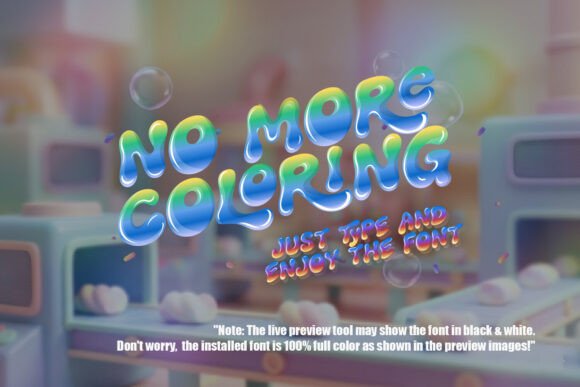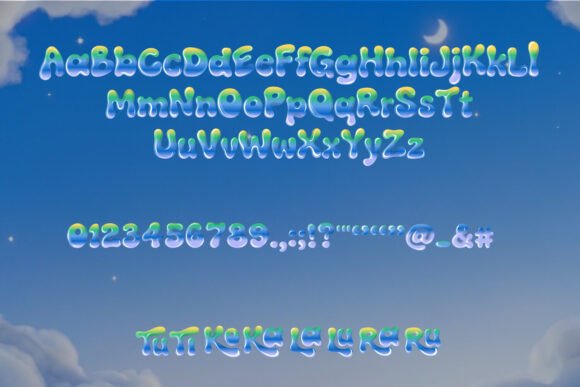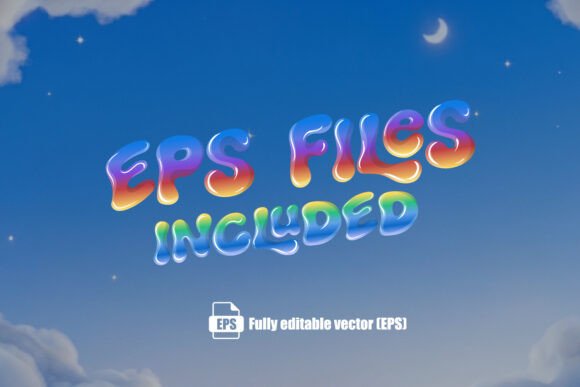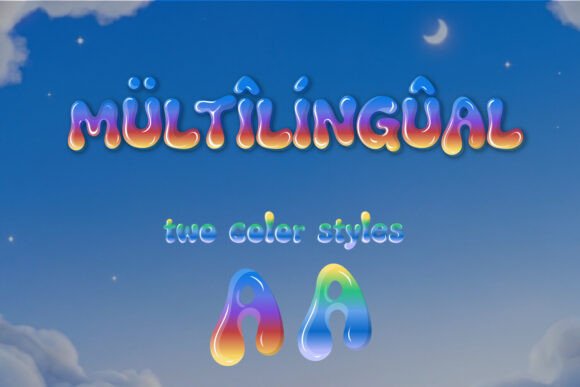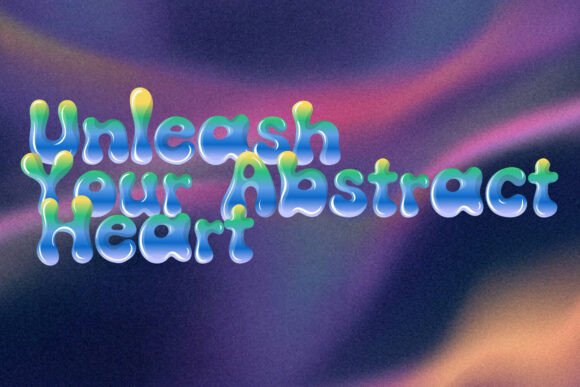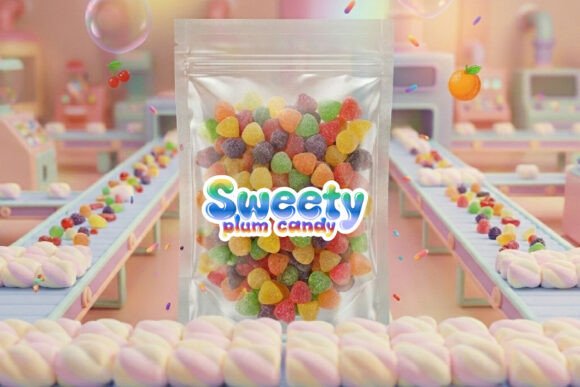
Introduction to Plumgumty Font
Do you remember the thrill of unwrapping a colorful gummy candy? The moment you discover a burst of sweet flavor and vibrant colors is a moment of pure joy. As a designer, you can now bring that same excitement to your creative projects with the Plumgumty Font! This innovative, high-quality color font is a game-changer for designers looking to add a pop of fun and energy to their designs.
Imagine being able to type out a message or a title in a font that’s as colorful and dynamic as a gummy candy. No more manual coloring or tedious design processes – with Plumgumty Font, you can unleash your creativity and focus on what matters most: bringing your ideas to life. Whether you’re working on a design project for kids’ products, social media thumbnails, or modern branding, Plumgumty Font is the perfect resource to elevate your creative workflow.
Key Features of Plumgumty Font
- High-quality, unique design perfect for creative projects, available as a free download for designers.
- Transparent background, making it ideal for use on various backgrounds and designs.
- Supports a wide range of languages, making it a valuable resource for international design projects.
- Unique characteristics include a bold, modern aesthetic and intricate details, making it a standout design resource.
Honest Review: Plumgumty Font
I recently had the chance to work with the Plumgumty Font, and I must say, it’s been an interesting experience. As a designer, I’m always on the lookout for unique and high-quality fonts to add a touch of personality to my creative projects.
One of the standout features of the Plumgumty Font is its ✨ transparent background, which makes it a great choice for designers who need to create graphics with a clear background. The font itself is also quite versatile, with a range of weights and styles to choose from, making it perfect for a variety of creative projects.
Here are some of the key features of the Plumgumty Font:
- High quality, with a clear and crisp font design
- Transparent background, perfect for graphics with a clear background
- Range of weights and styles to choose from
However, I do have to mention a few limitations of the Plumgumty Font. ⚠️ The font can be a bit difficult to read at small sizes, and it may not be the best choice for body text.
Overall, I’d say the Plumgumty Font is a solid choice for designers who are looking for a unique and high-quality font for their creative projects. While it may have a few limitations, it’s definitely worth checking out, especially if you’re working on a project that requires a clear and transparent background.
Tips for Getting the Most Out of Plumgumty Font
For optimal results, use Plumgumty Font in conjunction with other design elements, such as images and graphics, to create a cohesive and visually appealing design. Experiment with different font sizes and styles to add depth and interest to your design. With its high quality and versatility, Plumgumty Font is a valuable resource for any creative project.
Plumgumty Font is ideal for a variety of creative projects, including brochures, flyers, and business cards. Its transparent background feature makes it perfect for designing graphics and icons that require a clear background. Whether you’re working on a personal or professional project, Plumgumty Font is a valuable design resource that can help you achieve your creative vision.